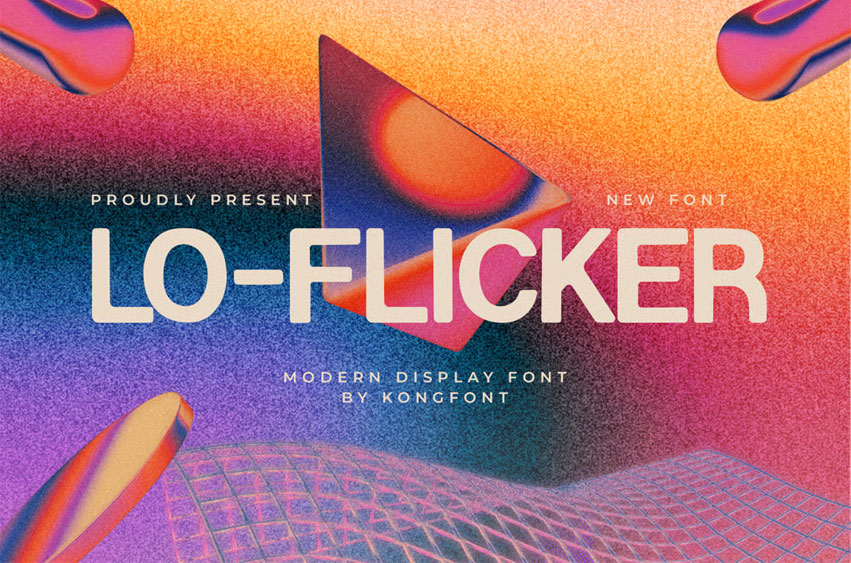
Lo-flicker Font
Lo-flicker Font is a modern display font infused with a glitchy, analog spiritperfect for designs that live between retro nostalgia and digital noise. With its distorted lines, imperfect rhythm, and electric flow, this typeface mimics the flickering of old CRT screens and lo-fi tech interfaces.
Ideal for music posters, album artwork, digital branding, experimental fashion, editorial layouts, and video content, Lo-flicker turns simple words into visual signals pulsing with personality. It’s bold, messy, modern, and made to stand out in a clean design world.
Featuring uppercase and lowercase characters, numbers, punctuation, and multilingual support, Lo-flicker brings a broken-beauty aesthetic to futuristic and underground design scenes.
Tune into the static with Lo-flicker, where typography meets lo-fi distortion.